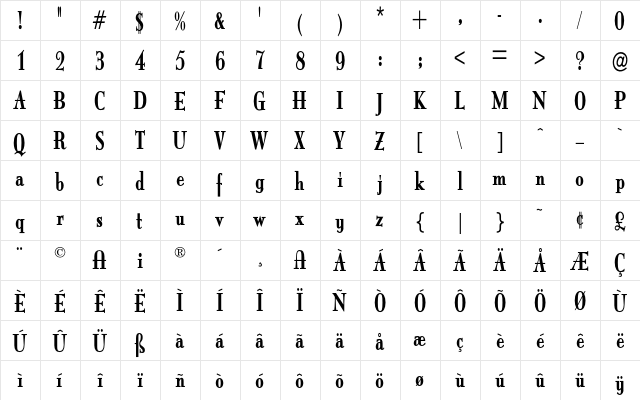
ItingOpti BoldCondensed
Design Context for ItingOpti Typeface
ItingOpti is a composed and adaptable typeface that performs quietly and consistently across a wide range of design contexts. Its bold stroke weight gives it real presence on the page. The condensed width makes it efficient for tight spaces without sacrificing legibility.